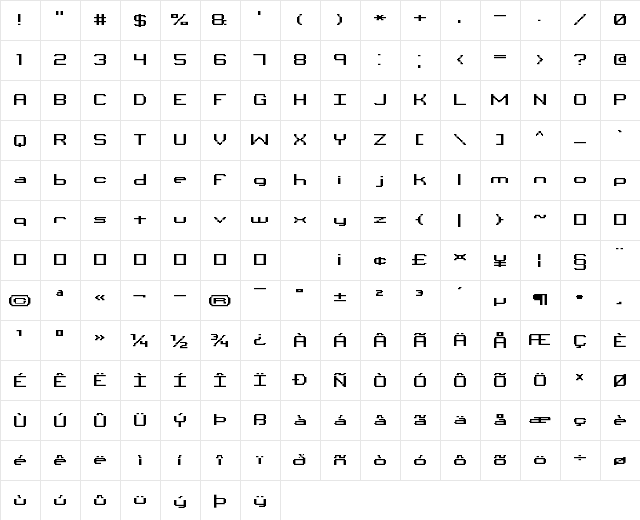
Binary X CHR BRK Regular
Design Context for Binary X CHR BRK Typeface
Binary X CHR BRK is a composed and adaptable typeface that performs quietly and consistently across a wide range of design contexts.